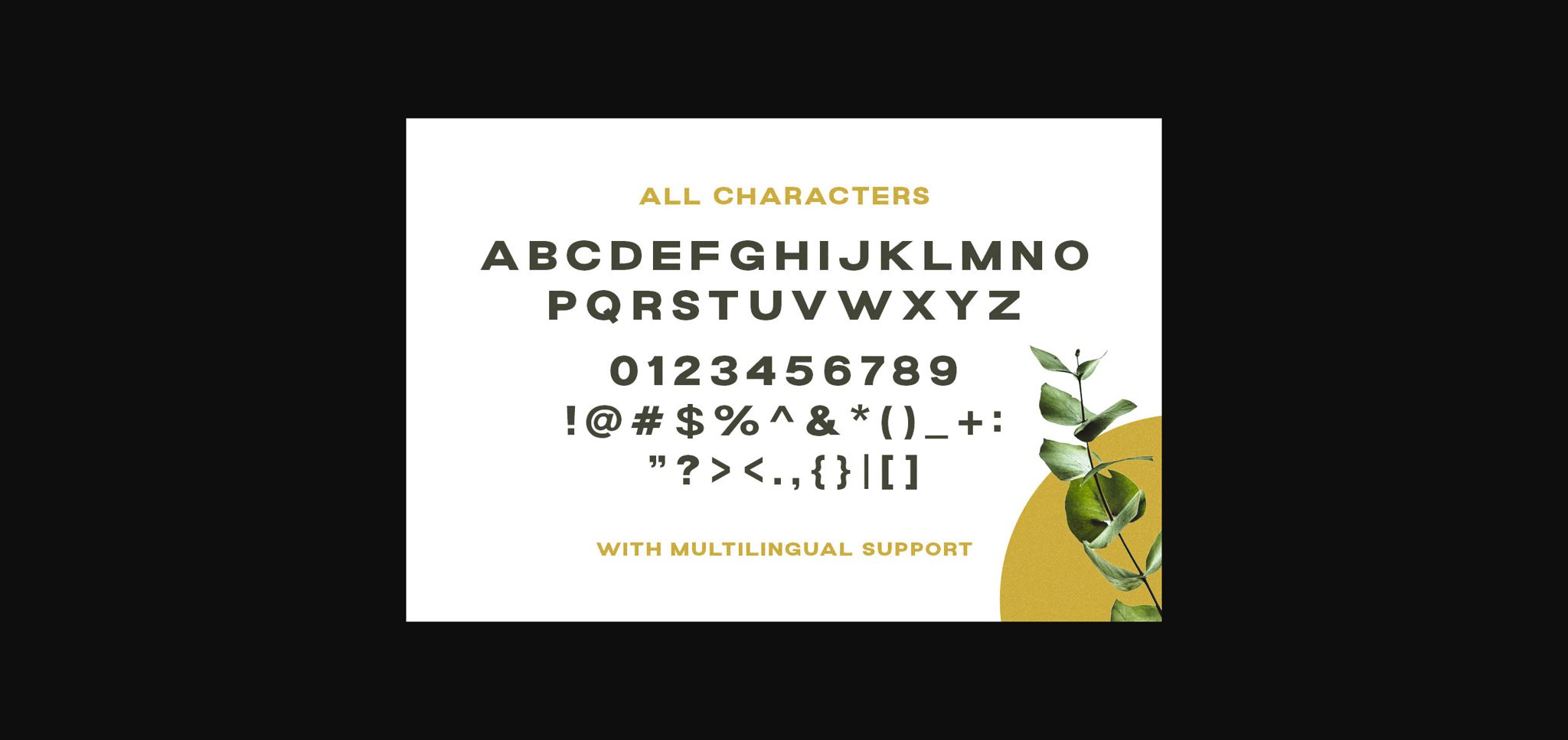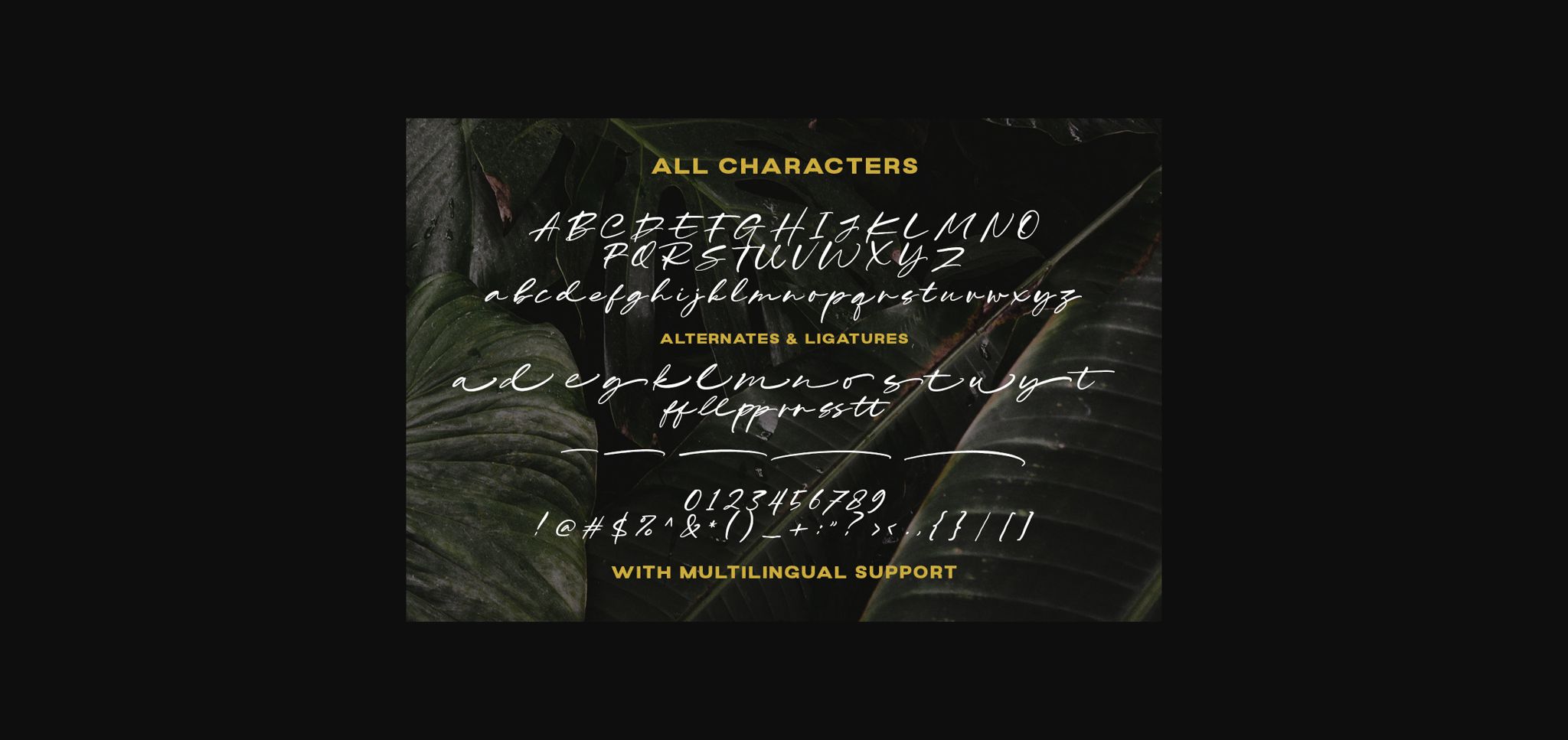
About Grand Wilson Font
Grand Wilson is an incredibly cool and flexible duo font (sans serif and script). Suitable to a wide variety of designs due to its neat and simple style, this font has the potential to become your favorite go-to font, no matter the occasion!